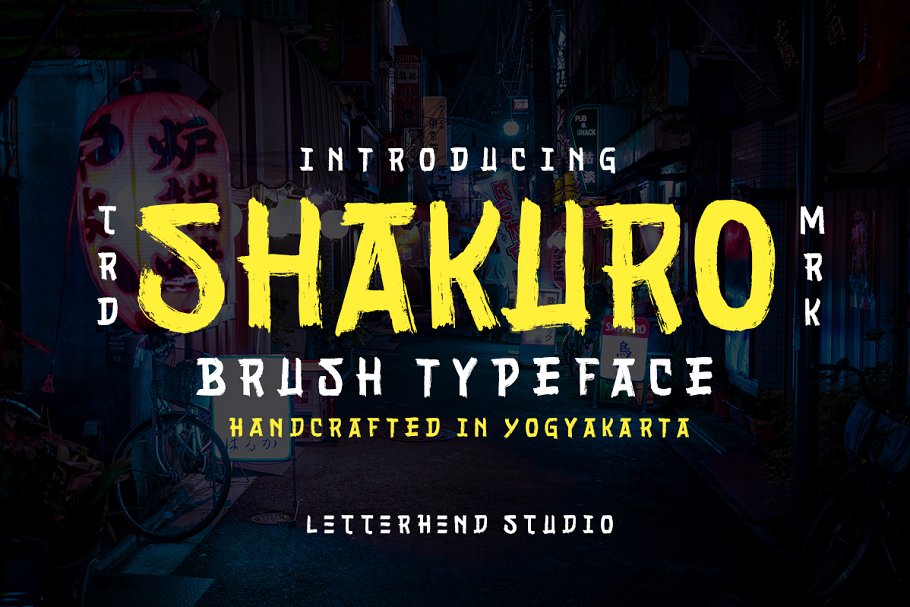
Shakuro Brush Font
Shakuro Brush Font is perfect for dynamic street art designs, energetic graffiti-style logos, urban fashion brand identities, bold music festival posters, expressive social media graphics, artistic workshop materials, creative agency portfolios, modern calligraphy projects, edgy tattoo parlor signage, and spontaneous artistic expressions. This vibrant typeface brings raw creativity to skateboard brand graphics, urban lifestyle campaigns, contemporary art gallery promotions, creative studio branding, and authentic artistic movement communications.
Shakuro Brush Font is exciting because it captures the spontaneous energy and artistic freedom of brush painting through its dynamically expressive letterforms. The font features bold, gestural characters with authentic brush stroke textures and organic flow that evoke the immediate energy of artists creating with ink and brush. Its distinctive construction demonstrates artistic spontaneity with carefully preserved brush marks and natural irregularities that create an immediate sense of creative authenticity and artistic passion. The font's brush-painted vitality and artistic genuineness make it perfect for brands seeking to communicate creative expression, artistic freedom, and authentic handmade quality in their visual communications.
The Shakuro Brush Font family includes various artistic styles: Light Brush, Regular Brush, Bold Brush, Heavy Brush, Script Brush, Dry Brush, Wet Brush, Textured Brush, Condensed Brush, Extended Brush, Splatter Brush, and Artistic variants. Each family member maintains the core brush DNA while offering different stroke weights for diverse artistic design applications. The comprehensive font collection ensures consistent creative branding across artistic campaigns, handmade product lines, and expressive communication materials.
Whether you're creating artistic brand identities, designing creative marketing materials, developing expressive website headers, or crafting handmade promotional campaigns, Shakuro Brush Font delivers outstanding artistic appeal and brush-painted authenticity. The font's distinctive expressive personality excels in creative logos, artistic packaging design, handmade applications, and expressive projects where brush artistry and creative spontaneity are essential.